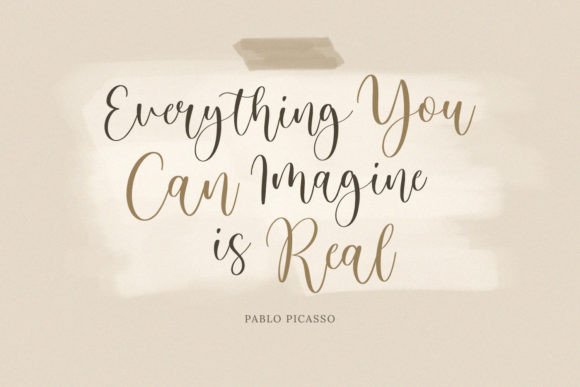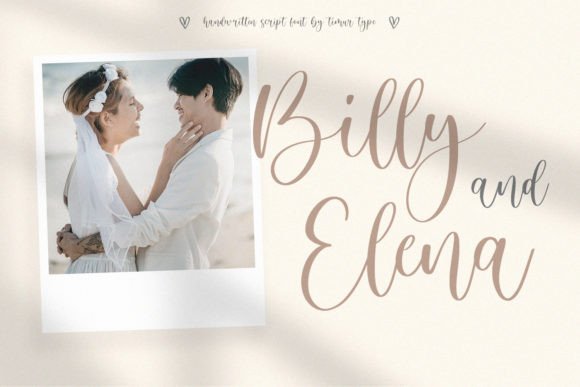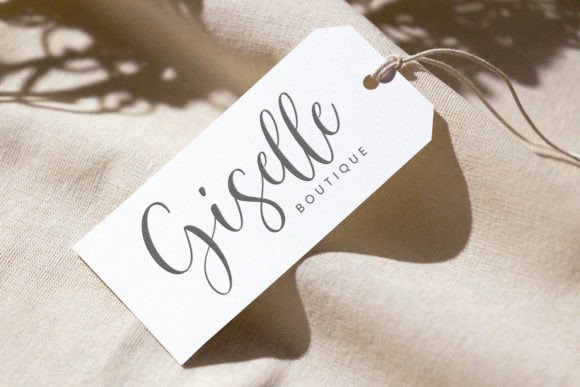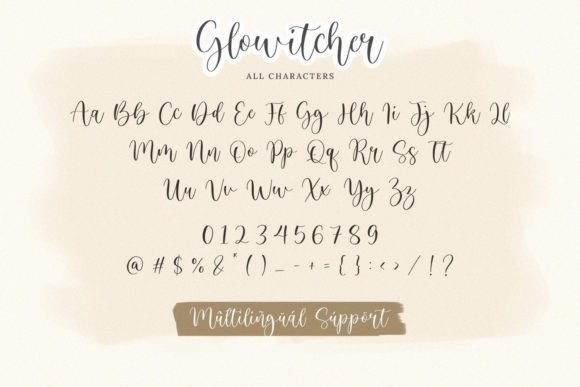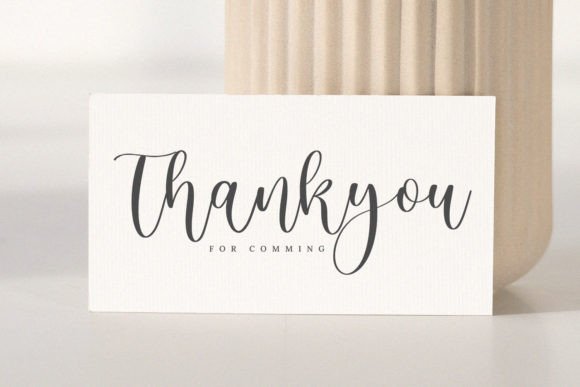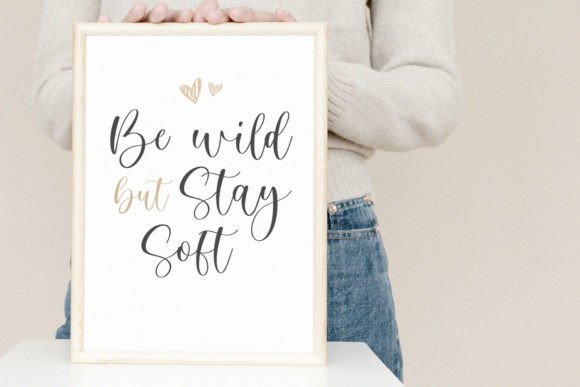
Glowitcher Font
About Glowitcher Font
Glowitcher feels equally charming and elegant. It looks stunning on wedding invitations, thank you cards, quotes, greeting cards, logos, business cards, and every other design which needs a handwritten touch.